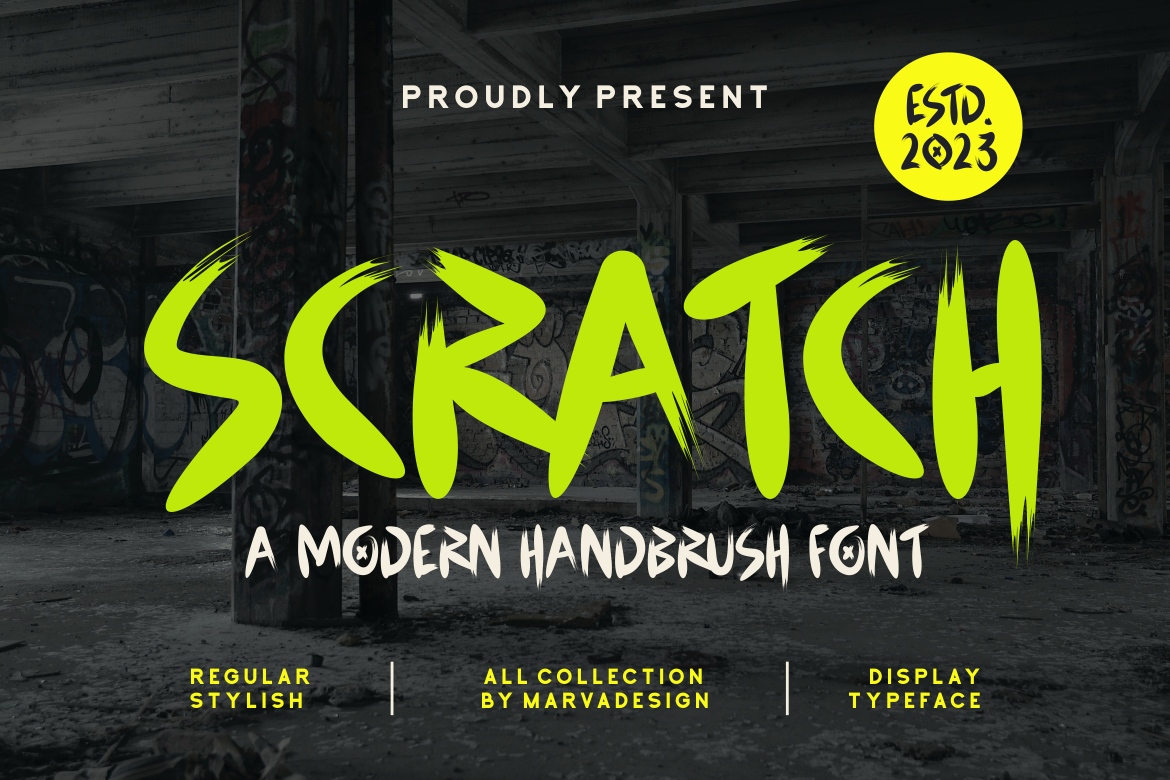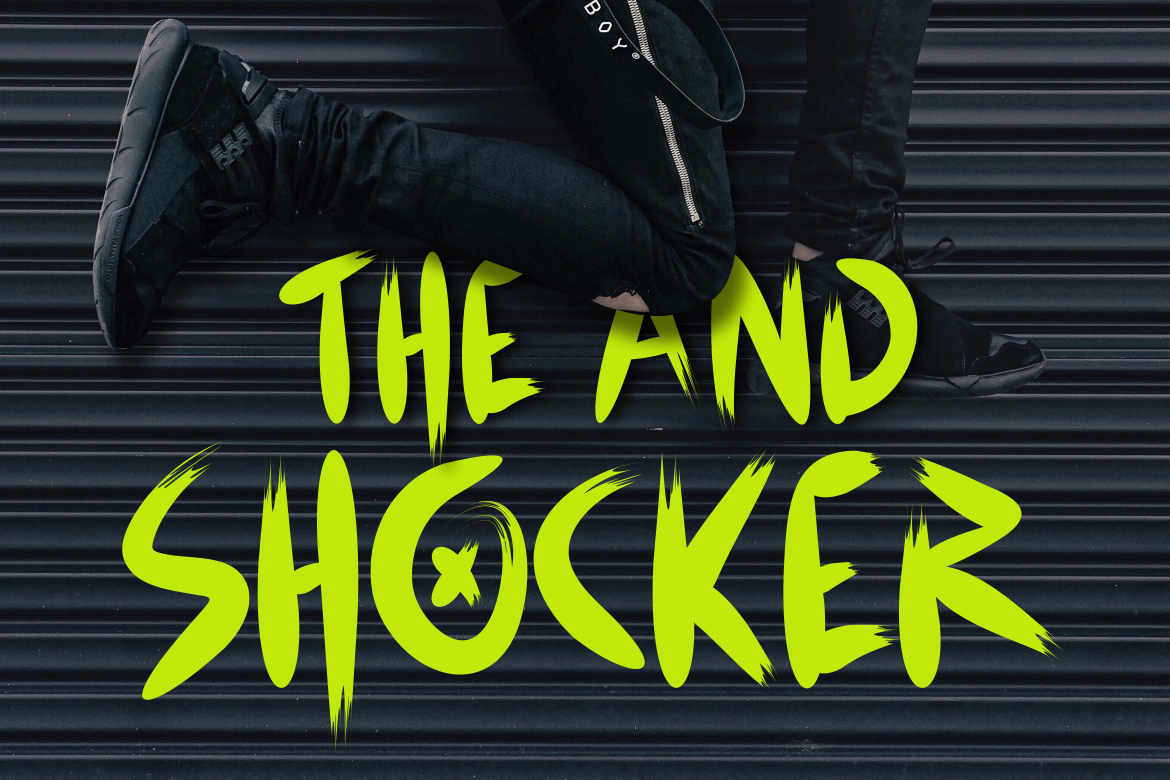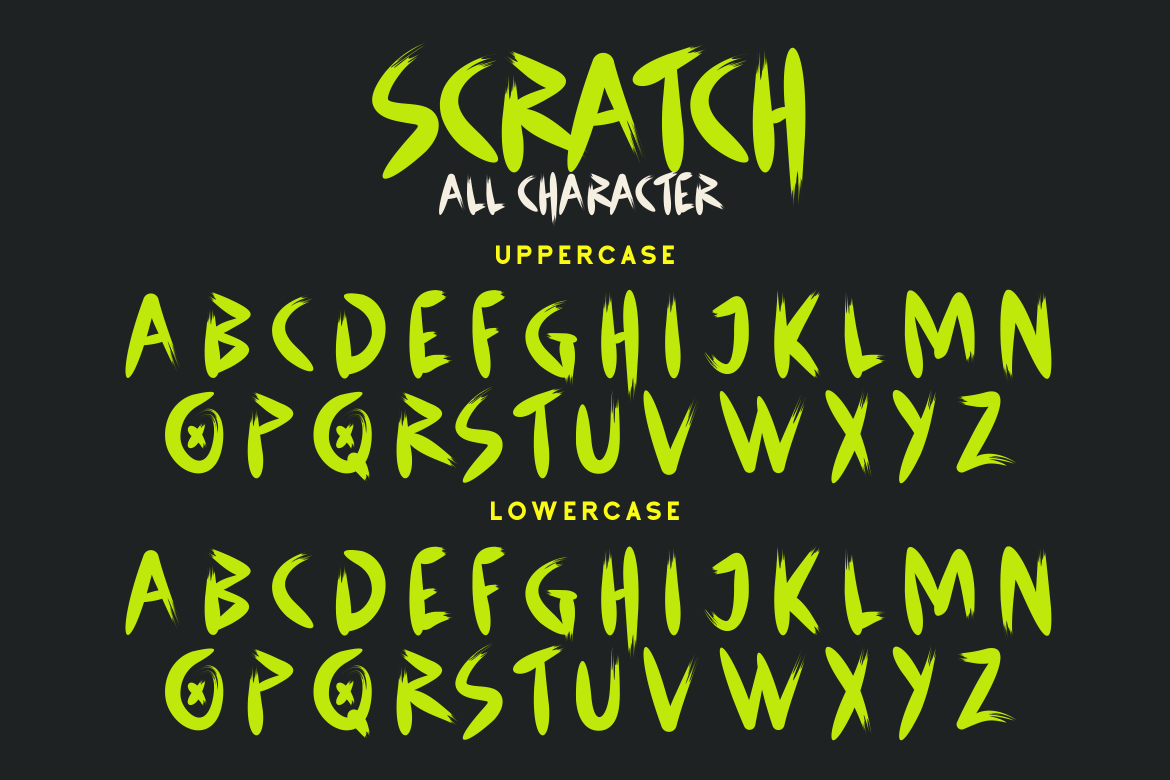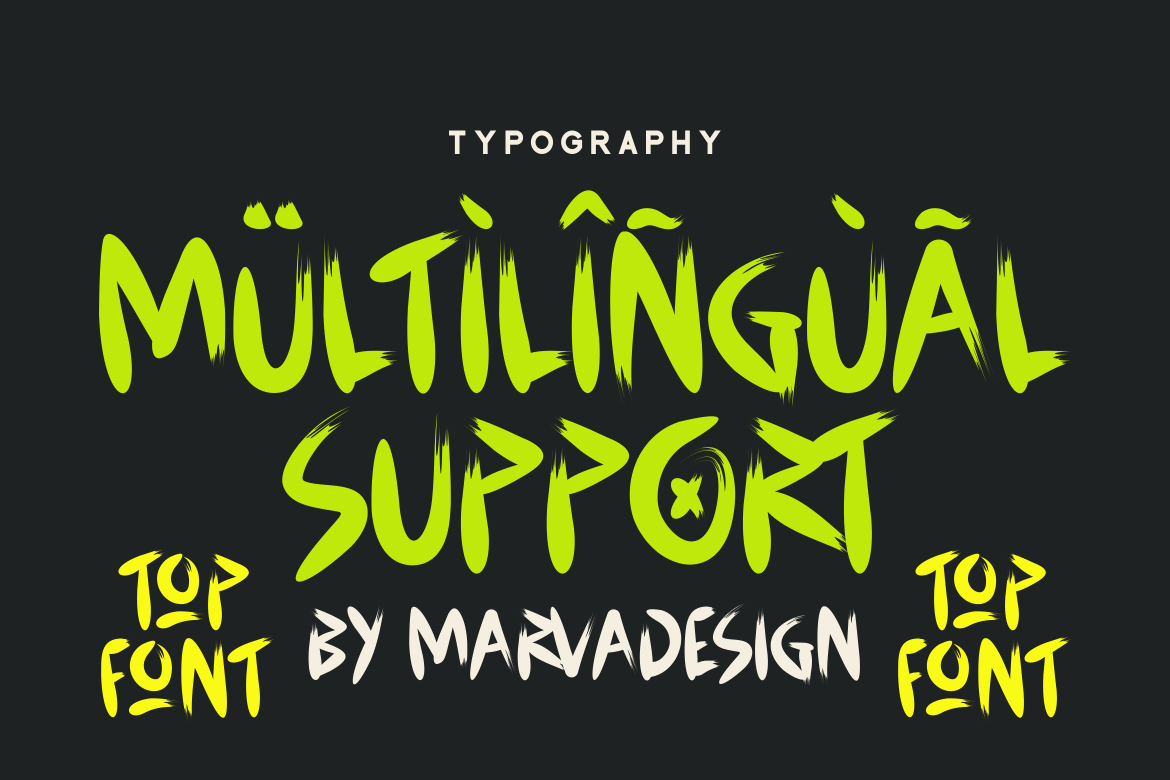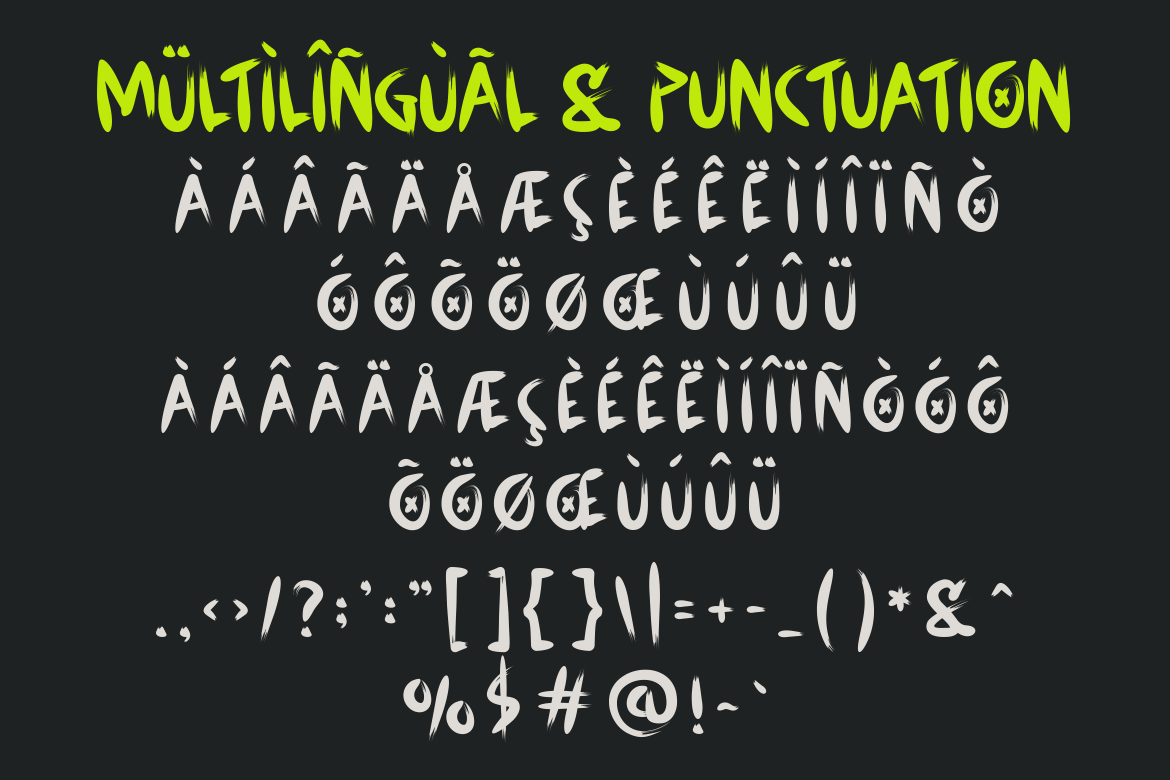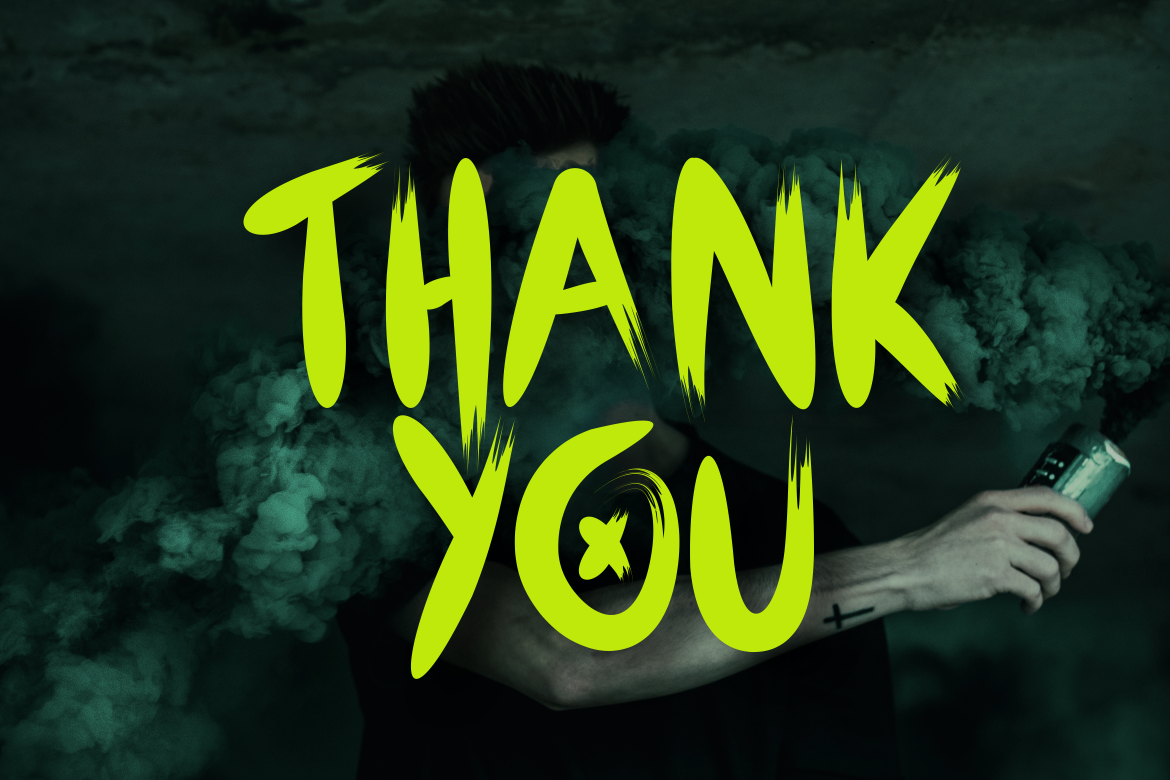
MarketplaceFontsScratch - A Modern Handbrush Font
Introducing our new product SCRATCH Font - Modern Font SCRATCH Font** - Modern Font is a bold and authentic display font. The font is suitable for any branding project like logo, Template Design, Product and many more. outstanding in a wide range of contexts.